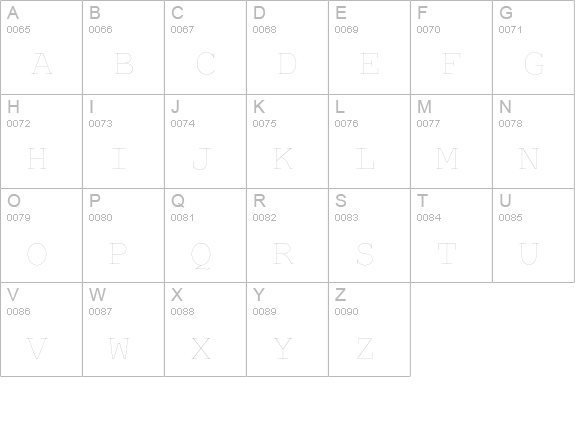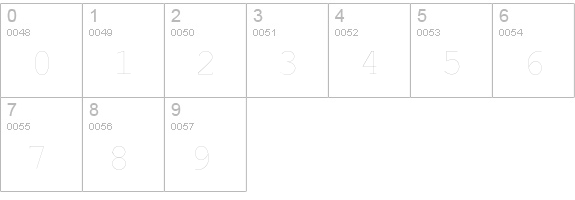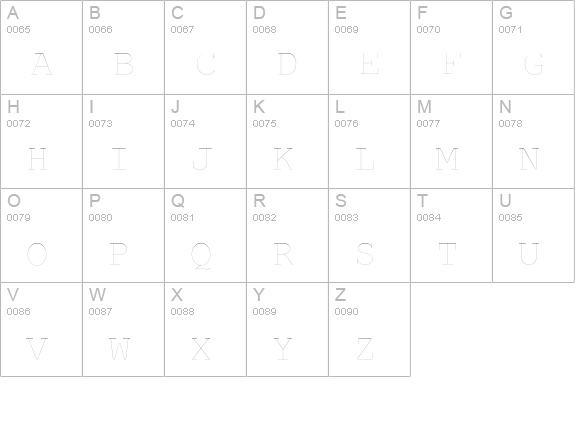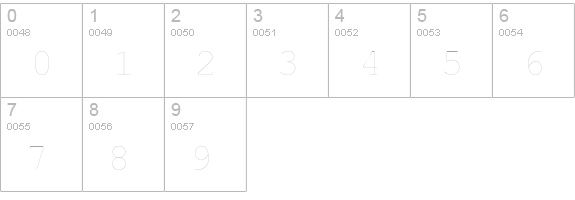
Kleaner Font Details
Kleaner font is a stylish and modern typeface that is perfect for adding a touch of sophistication to any project. Its clean lines and elegant curves make it a versatile choice for both headings and body text. Whether you're designing a logo, creating a website, or crafting a brochure, Kleaner font will elevate your design to the next level. One of the best things about Kleaner font is that it is free. Yes, you read that right – this stunning typeface is available to download at absolutely no cost. Say goodbye to expensive font licenses and hello to creative freedom. With Kleaner font, you can bring your vision to life without breaking the bank. But don't let its price tag fool you – Kleaner font is of the highest quality. It has been meticulously crafted by talented designers to ensure that every character is visually appealing and perfectly balanced. Each letter, number, and symbol has its own unique personality, making Kleaner font a true standout in the world of typography. Downloading Kleaner font is quick and easy. Simply visit FontsMarket.com, where you'll find a wide selection of fonts, including Kleaner font, all available for free download. Once you've chosen Kleaner font, simply click the download button, and within seconds, it will be ready to use in your favorite design software. So why wait? Embrace the beauty and versatility of Kleaner font today. Download it for free at FontsMarket.com and unlock a world of creative possibilities. Whether you're a professional designer or a hobbyist, Kleaner font is sure to become your go-to choice for all your typographic needs.